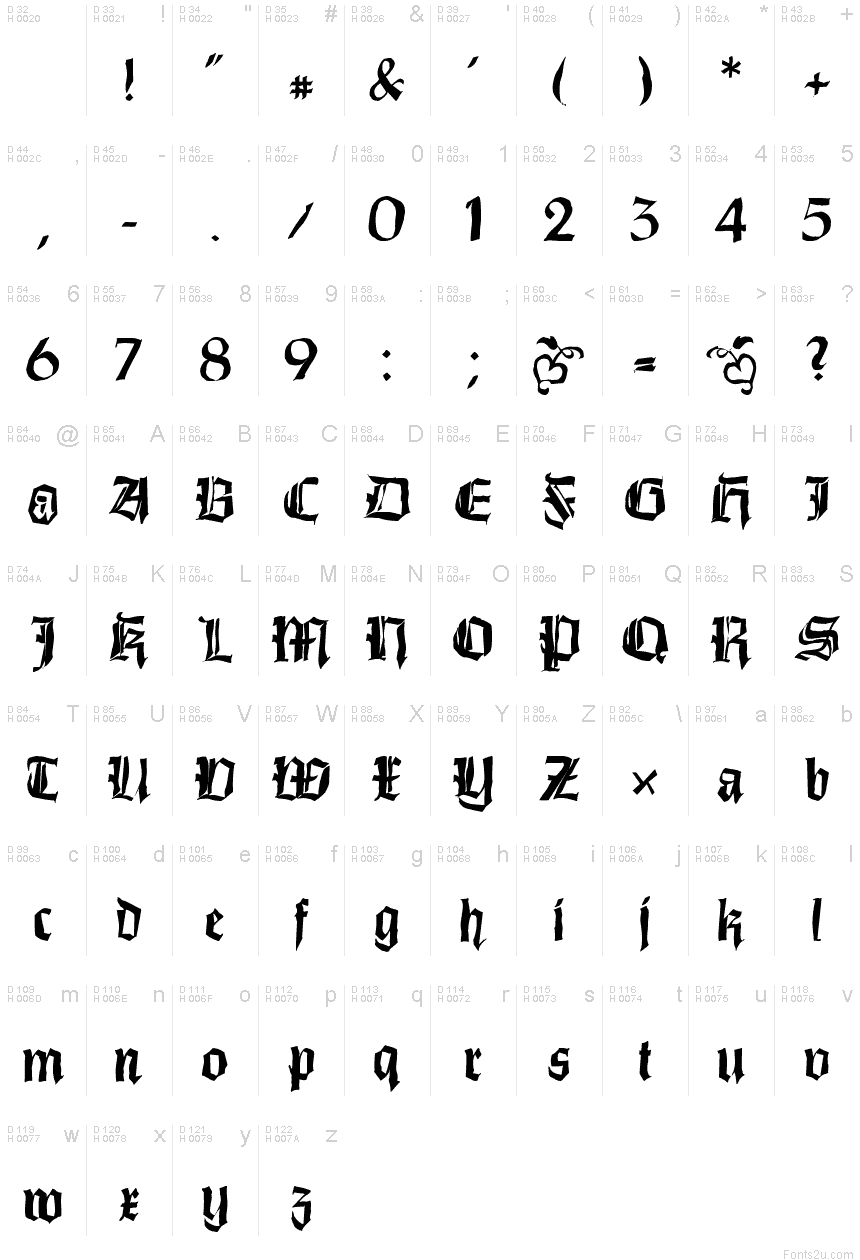
DirtyThinkwitz, designed by Manfred Klein for Klaus Burkhardt, is a free blackletter font with an unruly medieval edge. Its broad, fractured forms combine sharp turns, uneven stroke widths, and sweeping pointed ends, giving the lettering the look of hand-cut signage rather than formal calligraphy.
It is especially convincing on music posters, where its dense silhouette suits metal, punk, and theatrical artwork. It also fits fantasy book covers and event merchandise. Those blade-like points can echo swords, torn banners, or jagged illustration borders, turning the lettering into part of the artwork.